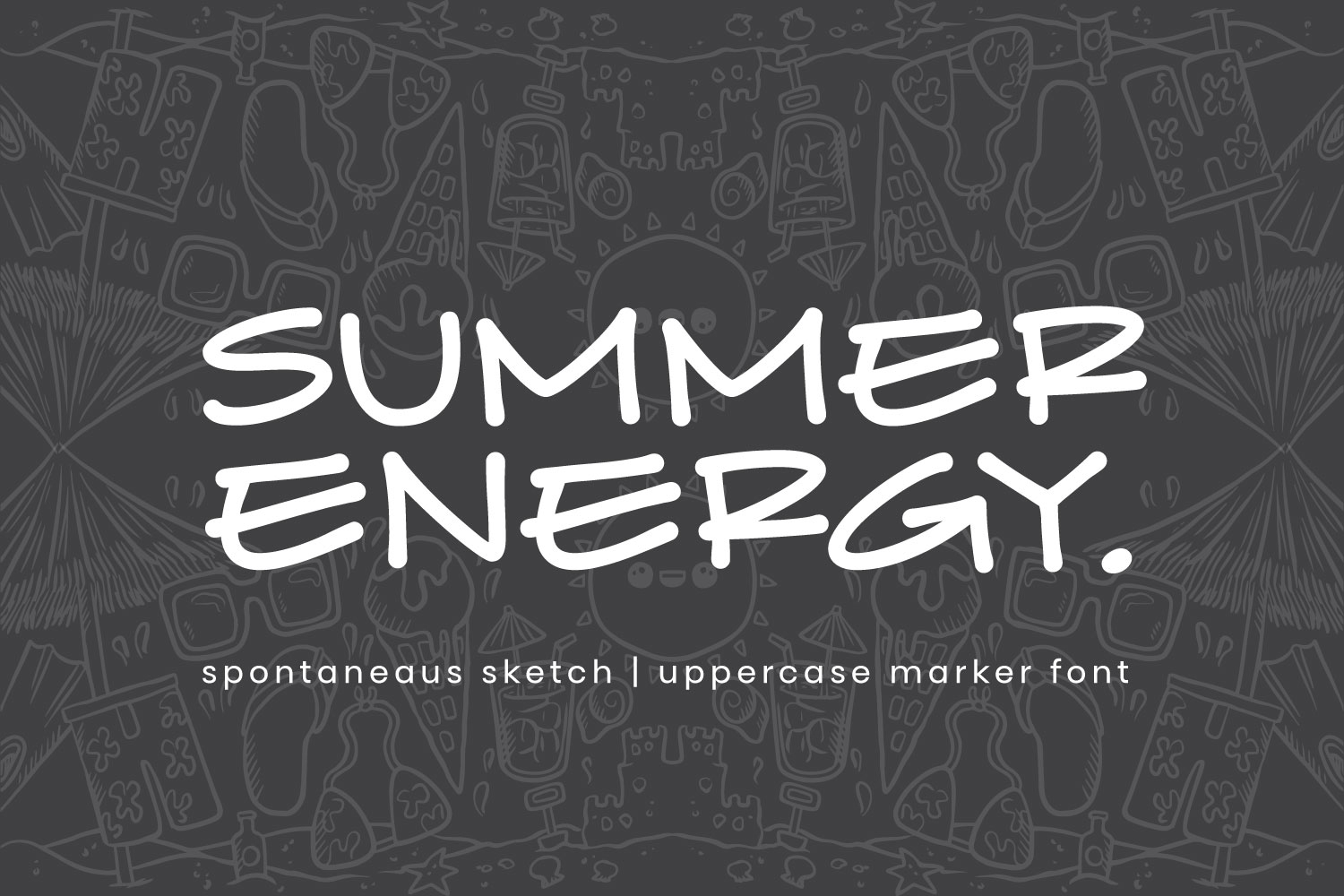
Summer Sketch
Summer Sketch is a bold, all-uppercase marker font inspired by the raw charm of spontaneous handwriting. Its form reflects the energy of quick, confident strokes, similar to the natural flow of an architect’s hand sketching freely on paper. Each letter is casual and imperfect, yet intentional, creating a rhythm that feels expressive, and full of character.
This typeface is designed for creatives who want their message to feel handmade and alive. It works beautifully for posters, sketchbook covers, journals, branding, or any design that needs bold expression. Complete with uppercase letters, numbers, punctuation, and Latin Extended support, Summer Sketch brings a fresh and free-spirited feel to every project while staying visually strong and approachable.